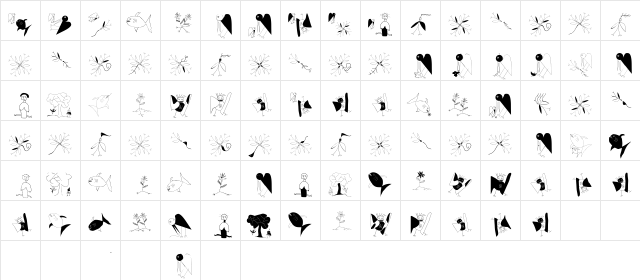
KarlasAnarchists Regular
Design Context for KarlasAnarchists Typeface
KarlasAnarchists is a composed and adaptable typeface that performs quietly and consistently across a wide range of design contexts.